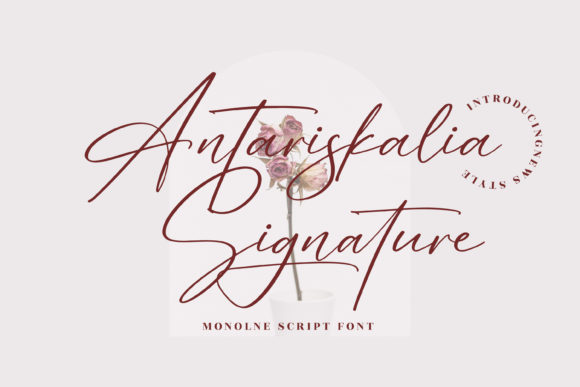
The Elusive Font: A Designer’s Journey to Finding Elegance
I still remember the countless hours I spent scrolling through font libraries, searching for that perfect script font to elevate my design project. My client wanted something elegant, something that would make their brand stand out. And then, I stumbled upon Antariskalia Signature – a stylish and incredibly elegant script font that has since become a staple in my design toolkit.
Antariskalia Signature is more than just a pretty face. Here are the things I love about this font:
- ✨ Elegant and stylish: This font exudes sophistication and refinement, making it perfect for high-end designs.
- ✅ PUA encoded: With PUA encoding, accessing glyphs and swashes is a breeze, giving you more creative control.
- ✅ Versatile: Antariskalia Signature looks stunning on a variety of designs, from wedding invitations to business branding.
While Antariskalia Signature is an excellent font, there are a few quirks to keep in mind:
- ⚠️ Glyph overload: With so many glyphs and swashes available, it can be overwhelming to navigate. Take some time to familiarize yourself with the font’s features.
- 🤔 Pairing challenges: As with any script font, pairing Antariskalia Signature with other fonts can be tricky. Experiment with different combinations to find the perfect match.
The Story Behind Antariskalia Signature
Antariskalia Signature was designed with elegance and sophistication in mind. The font’s creator drew inspiration from classic calligraphy and modern script fonts, blending traditional techniques with contemporary flair. The result is a font that’s both refined and versatile.
Q: How do I pair Antariskalia Signature with other fonts?
A: Pairing Antariskalia Signature with other fonts requires some experimentation. Try combining it with sans-serif fonts for a modern look or serif fonts for a more classic feel.